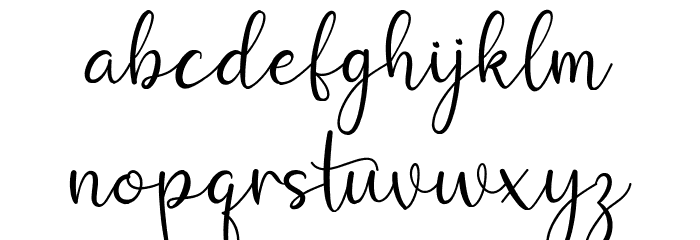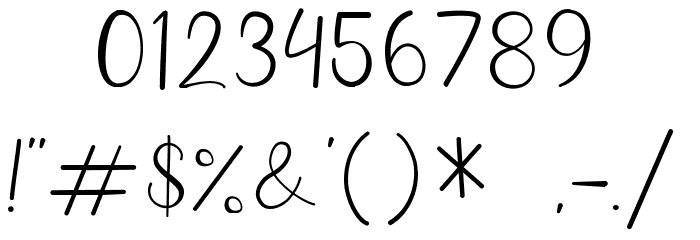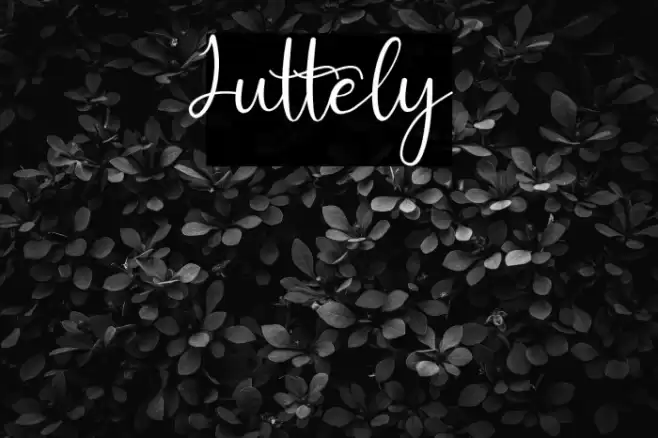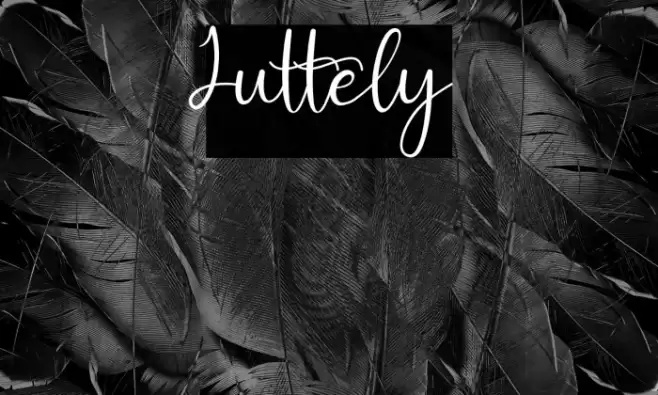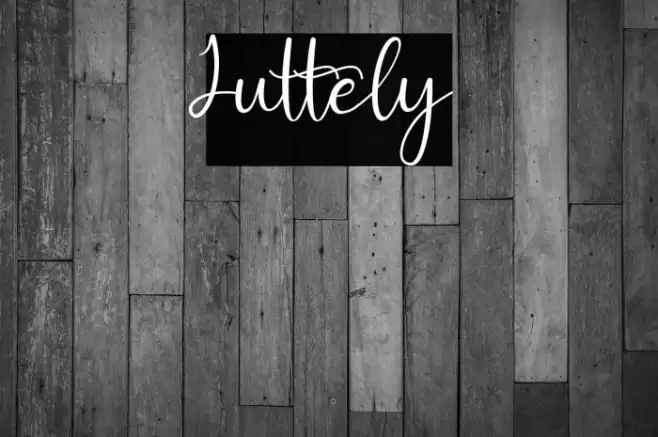
Juttely Font
This font features a playful and elegant script style, characterized by its fluid and connected letterforms. The uppercase letters are tall and slightly narrow, with a whimsical flair that adds a touch of sophistication. The lowercase letters are more rounded and maintain a consistent flow, enhancing readability while preserving the font's artistic nature. Numbers are clear and distinct, matching the overall aesthetic with their smooth curves. Special characters are thoughtfully designed, integrating seamlessly with the rest of the font. The overall impression is one of casual elegance, making it suitable for a variety of creative applications.
A playful and elegant script font with fluid, connected letterforms.
- Proposed Projects: Ideal for wedding invitations, greeting cards, branding projects, and social media graphics.
- Use Case: Logos, Invitations, Social Media